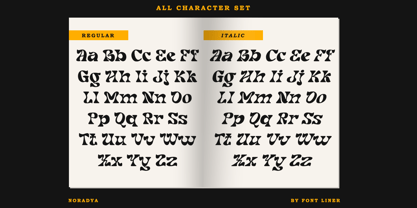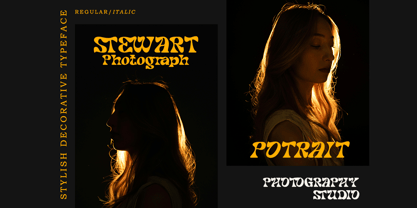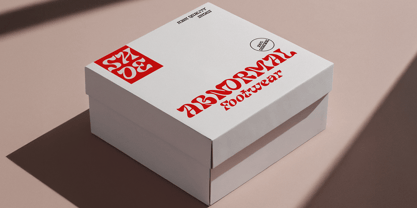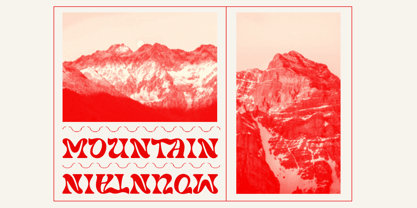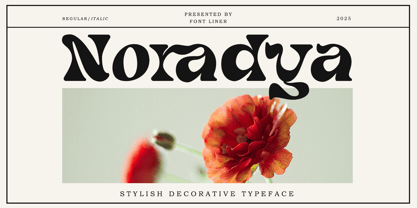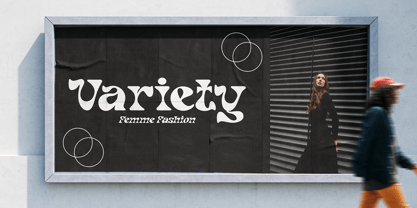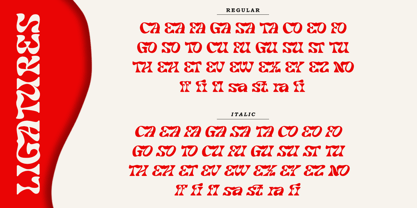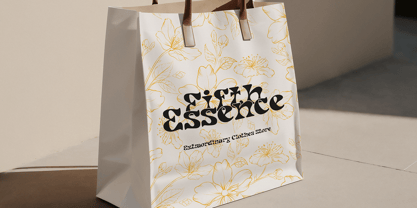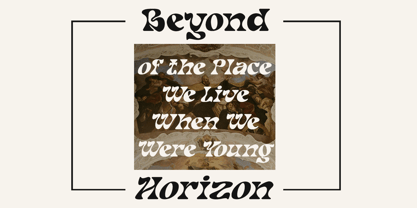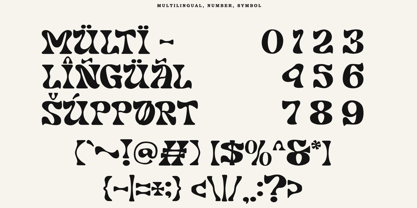
Noradya
Die Schriftfamilie Noradya wurde von Ghina Luthfiarieska entworfen und von Font Liner veröffentlicht. Noradya enthält 2 Stile und Familienpaketoptionen.
Noradya, a stylish serif font with bold and artistic decorative typeface designed to make your design projects stand out with unique and flair. With its unique curves and expressive serifs, Noradya blends classic charm with modern creativity, making it perfect for eye-catching headlines, editorial design, product packaging, branding, and more.
This font includes Regular and Italic styles, giving you versatile options to create dynamic layouts and stylish compositions. Each letterform is crafted with personality, ideal for both digital and print use.
• Noradya Regular
• Noradya Italic
• Ligatures Character
• Multilingual Support